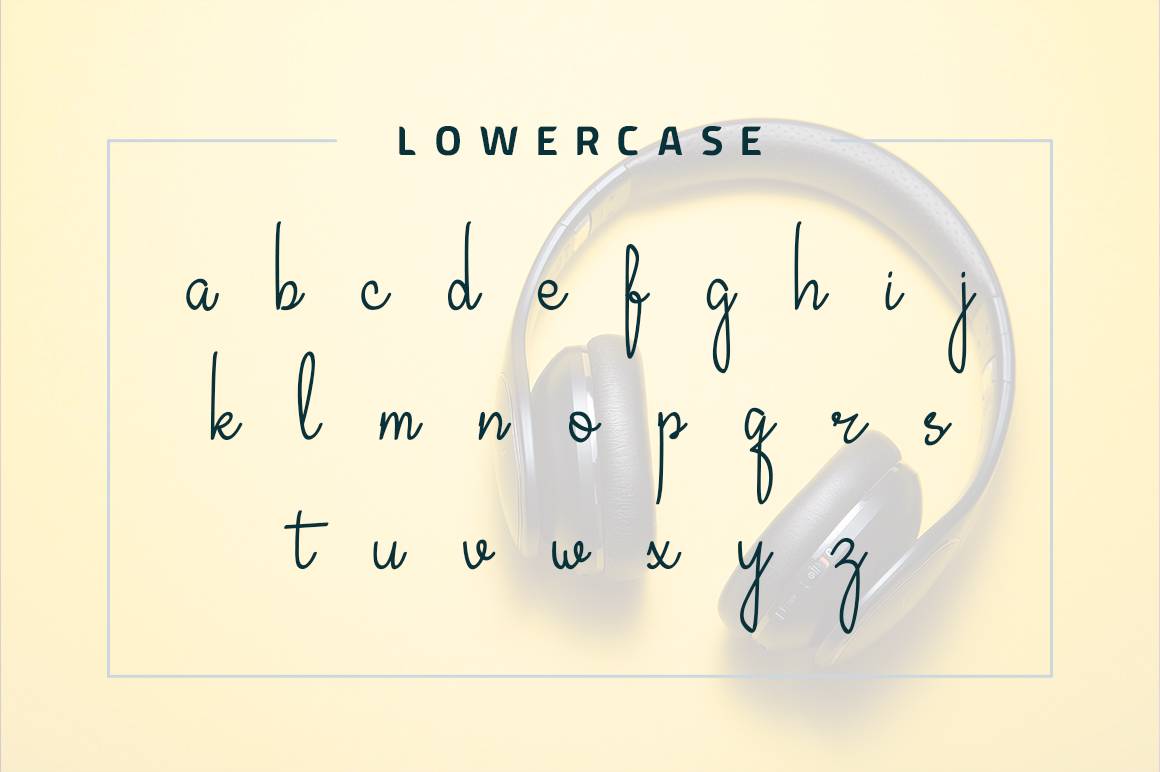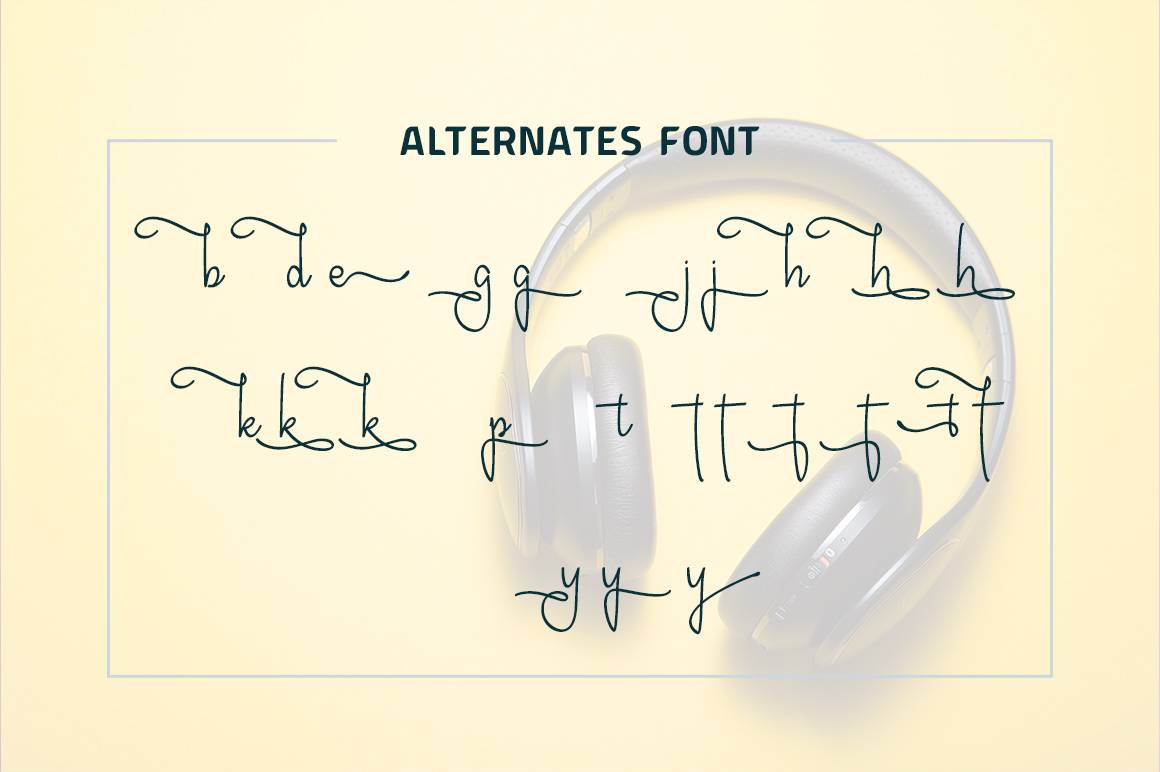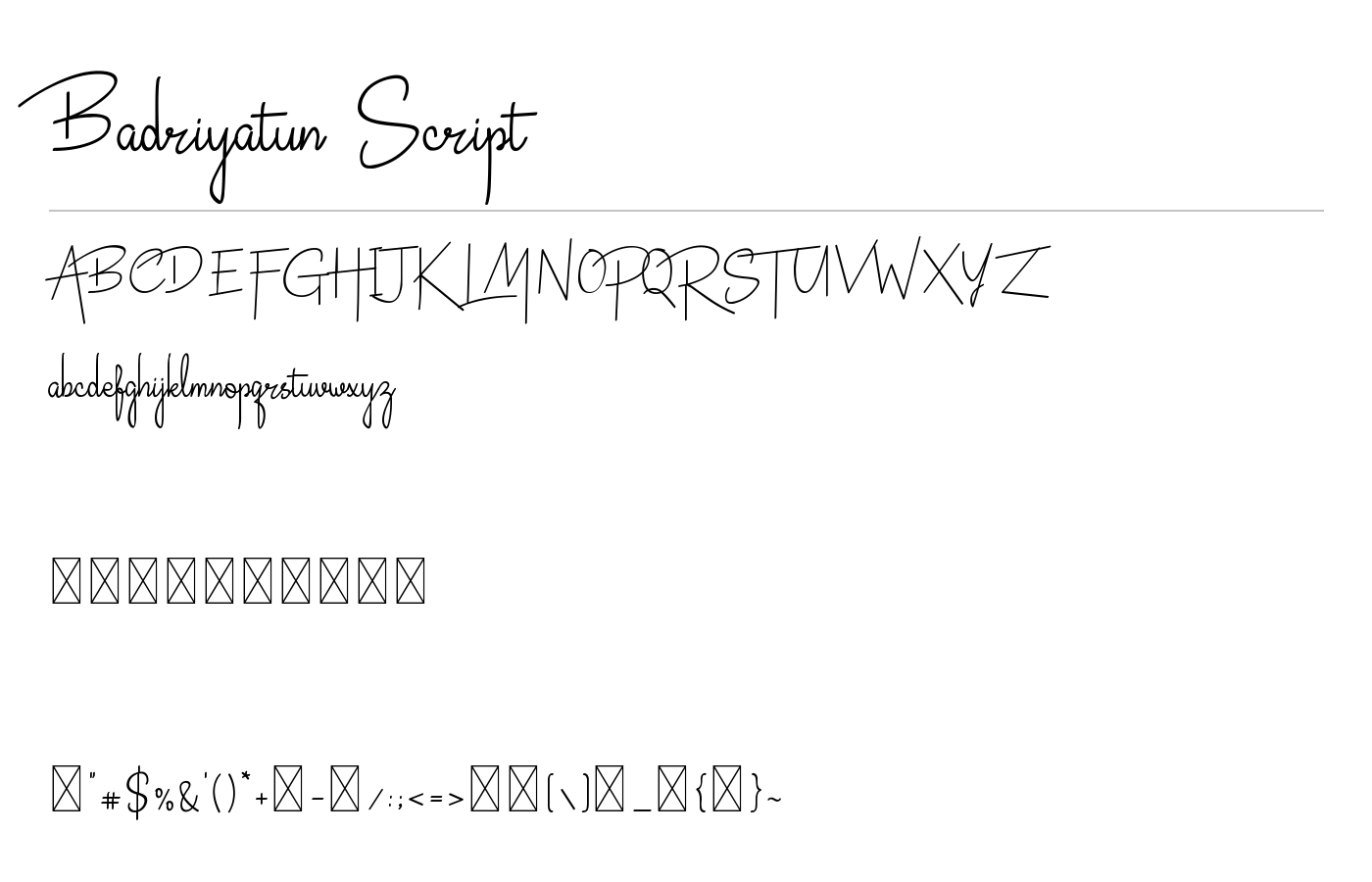
Badriyatun Script is a delicate, handwritten font featuring slender, elegant strokes with a charmingly quirky and casual feel. Its tall, narrow letterforms and loosely connected script style make it perfect for adding a personal, artistic touch to invitations, branding, and creative projects that seek a sophisticated yet approachable look. This font works best for headlines, logos, and decorative accents where a stylish and modern handwritten vibe is desired.
Badriyatun Font
About Badriyatun Font
| Font family | Badriyatun Font |
| Release date | 2019-03-01 |
| Designer | Joko Triwijayanto |